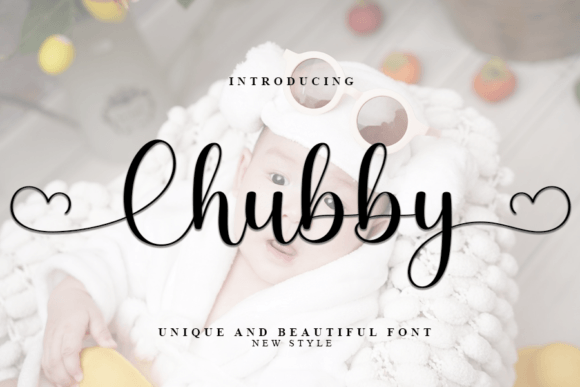
The Birth of a Unique Design: Chubby Font
Do you ever find yourself staring at a blank page, waiting for the perfect font to bring your creative vision to life? For designers, this moment is all too familiar. It’s the spark that ignites a project, the starting point for a new adventure. And sometimes, all it takes is the right font to make that vision shine.
Enter Chubby Font, a delicate handwritten font carefully crafted to add a touch of whimsy and personality to your designs. With its playful, organic feel, Chubby Font is perfect for writing letters, crafting invitations, or even labeling food products. Its unique charm makes it a valuable addition to any designer’s toolkit, allowing them to stand out in a crowded market and create truly memorable designs.
Chubby Font Key Features
- Size: The font family consists of 12 styles, ranging from Extra Light to Extra Bold, providing flexibility for various design applications.
- Unique Characteristics: The font’s distinctive rounded shapes and subtle texture give it a playful, yet sophisticated look, making it suitable for a wide range of creative projects.
- Language Support: Chubby Font supports a broad range of languages, including Latin, Cyrillic, and Greek, making it an excellent choice for multilingual designs.
- Font Size and Line Spacing: The font’s large x-height and generous line spacing ensure readability, even at smaller font sizes, making it ideal for body text and titles.
Chubby Font Review
Overall, I think Chubby Font is a cute and playful addition to any design project. ✨ It’s perfect for creating a whimsical or retro vibe, especially in children’s books, food labels, or advertisements. The rounded edges and chunky feel make it stand out from more traditional fonts.
- ✨ Unique and playful style: Chubby Font is great for adding a touch of personality to your designs.
- ✨ Versatile: It can be used in a variety of contexts, from titles to body text.
- ✨ Easy to read: Despite its chunky feel, Chubby Font is surprisingly clear and easy to read.
- ⚠️ Limited legibility at small sizes: While Chubby Font is easy to read at larger sizes, it can become difficult to read when scaled down.
- ⚠️ Not suitable for formal or professional contexts: The playful style of Chubby Font may not be suitable for more formal or professional designs.
Overall, I think Chubby Font is a great addition to any design project that needs a touch of whimsy. While it has some limitations, it’s a fun and versatile font that can add a lot of personality to your designs.
Chubby Font is ideal for:
– Creating playful and eye-catching headings.
– Adding a touch of whimsy to children’s educational materials.
– Designing retro-style posters and advertisements.
Getting the Most Out of Chubby Font
For optimal results, use Chubby Font in combination with bold colors and geometric shapes. Experiment with different font sizes and styles to create visually appealing designs.